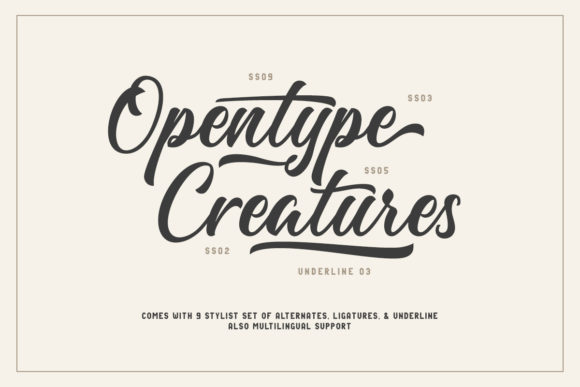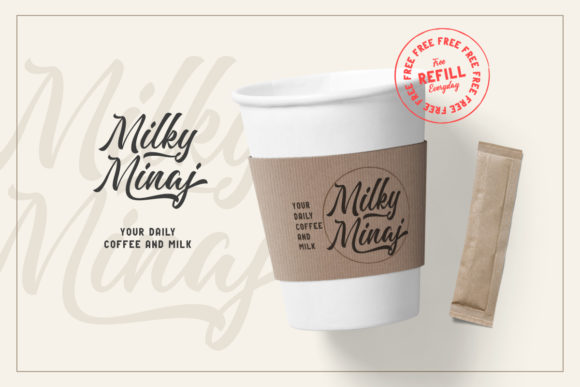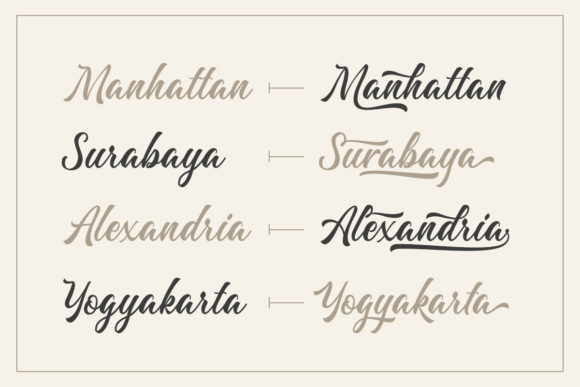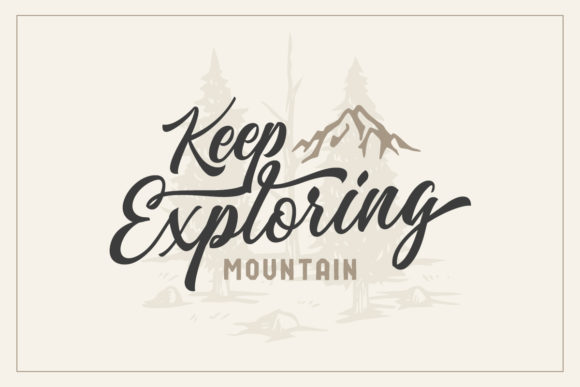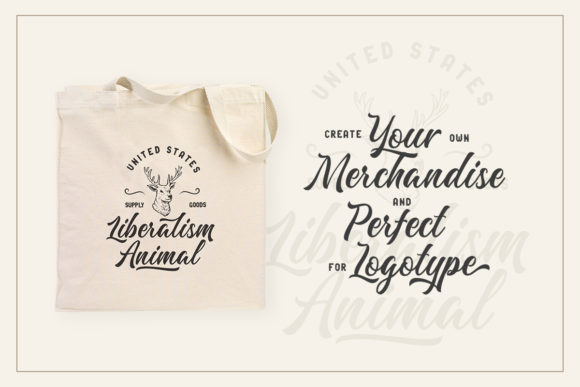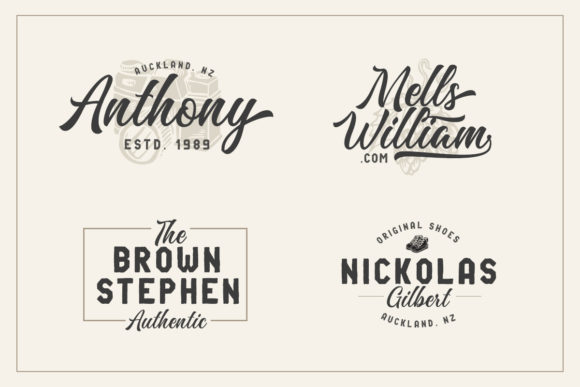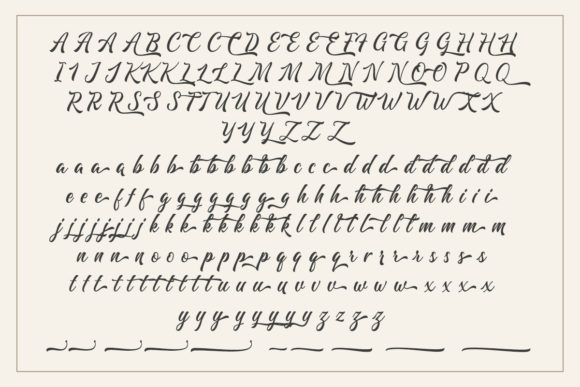
Majestika Font
About Majestika Font
Majestika is a beautiful and modern script font with a light feel. Use it to add a cool twist to any design project.